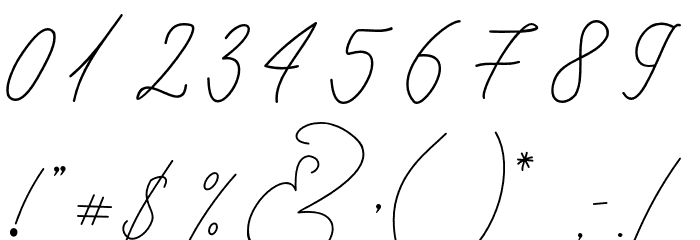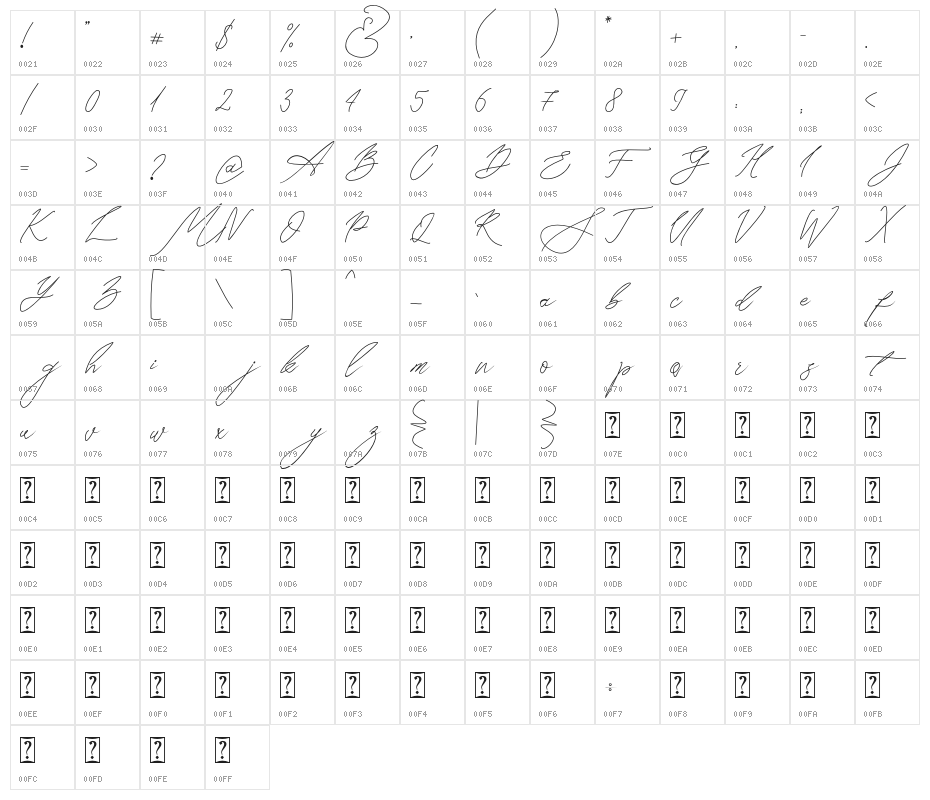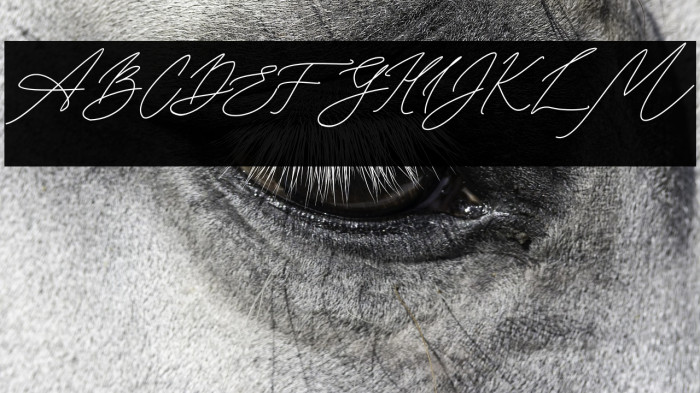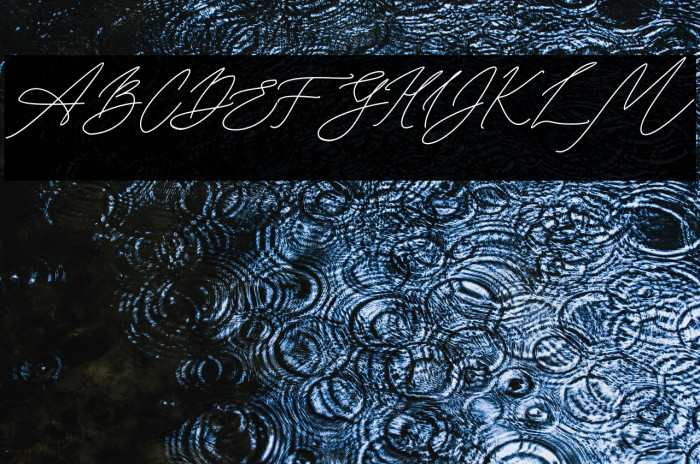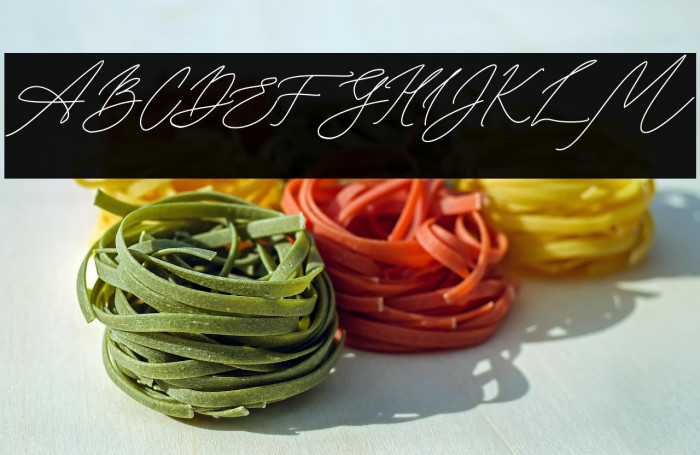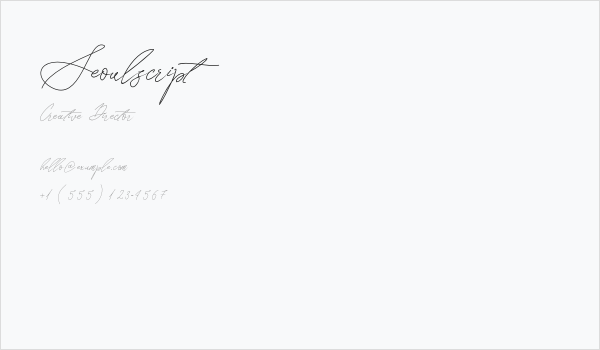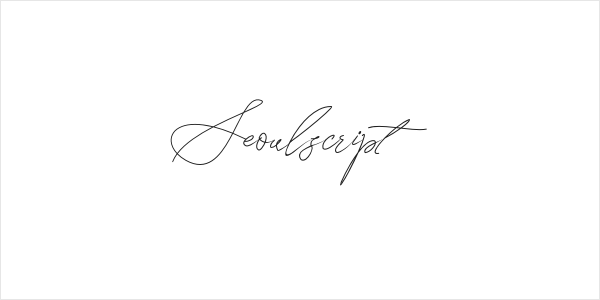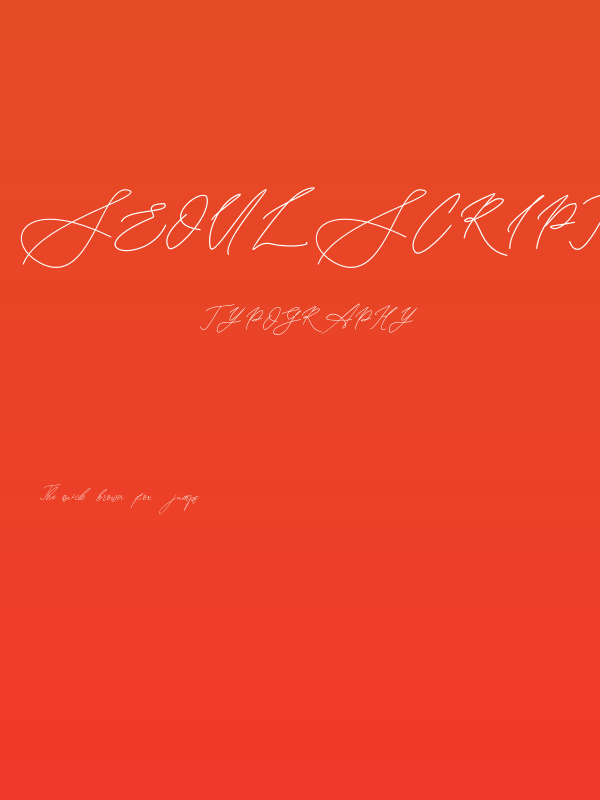
Seoulscript Font
Seoulscript Description
This elegant script font features flowing, interconnected letters that mimic the fluidity of handwritten cursive. The uppercase letters are tall and graceful, with sweeping curves and loops that add a touch of sophistication. The lowercase letters maintain a consistent slant and are intricately connected, enhancing the font's cohesive appearance. Numbers and special characters are designed with the same attention to detail, ensuring a harmonious look across all text. The font's delicate lines and smooth transitions make it ideal for projects that require a personal, artistic touch.
| Overall Style | Elegant, Artistic |
| Proposed Projects | Ideal for wedding invitations, greeting cards, personal branding, and elegant logos. |